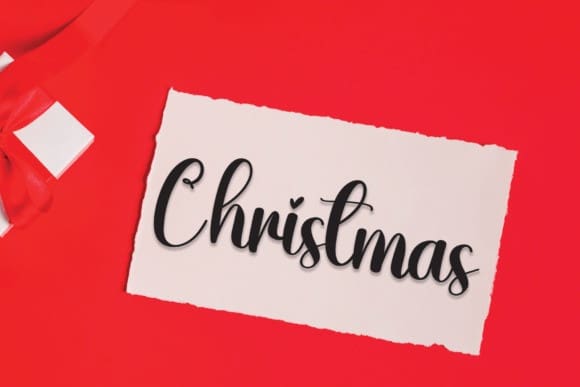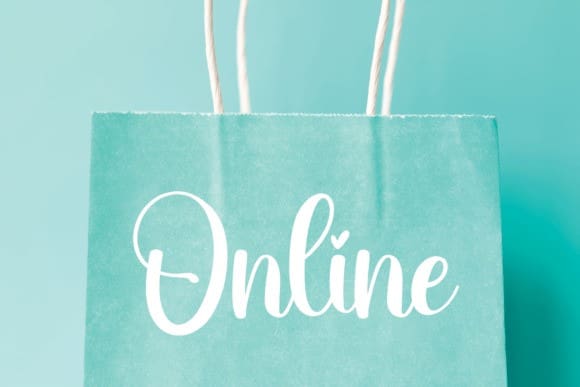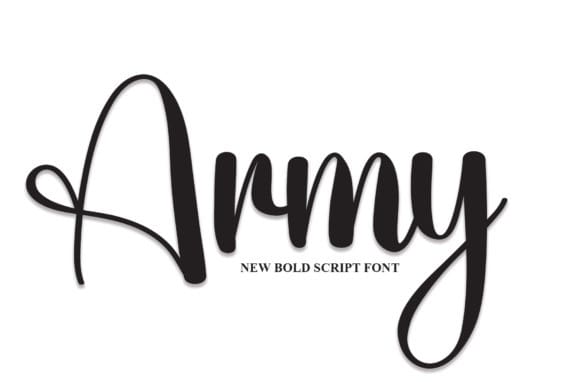
Army Script Font
Army Script Font, is a cool and neat handwritten script font. It maintains its classy calligraphic influences while feeling contemporary and fresh. Fall in love with it and bring your projects to the highest levels!